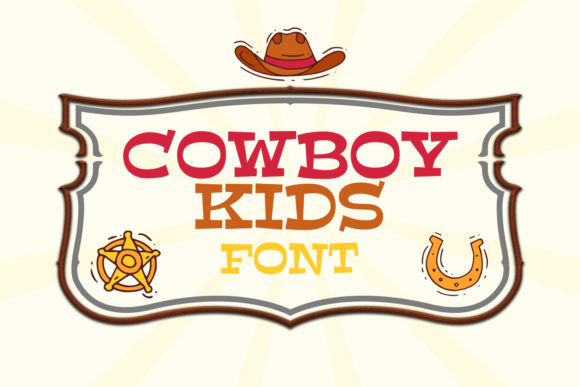
Introducing Cowboy Kids Font, a one-of-a-kind display font that will transport you back to the wild west! Created by OWPictures, this font is a perfect blend of nostalgia and creativity, designed to elevate your designs and captivate your audience.
When it comes to creating eye-catching designs, Cowboy Kids Font is the ultimate tool. Its unique and retro charm adds a special touch to any project, whether it's a newspaper ad, a poster, or even a website header. This font is the secret ingredient that will make your design stand out from the crowd.
With Cowboy Kids Font, your creative ideas will soar to new heights. Its intricate details and carefully crafted letterforms make it a true masterpiece. Each character has been thoughtfully designed to evoke a sense of adventure and excitement. Just imagine the impact this font will have on your audience!
But this font is not just visually appealing, it is also incredibly versatile. Its bold and legible letters make it perfect for headlines and titles, while its playful curves add a touch of whimsy to any design. Whether you're aiming for a vintage look or a modern twist, Cowboy Kids Font has got you covered.
Unleash your creativity with Cowboy Kids Font and let your imagination run wild. It's not just a font, it's a journey back in time, a chance to tell stories, and a tool to make your designs unforgettable. So why settle for ordinary when you can have extraordinary?